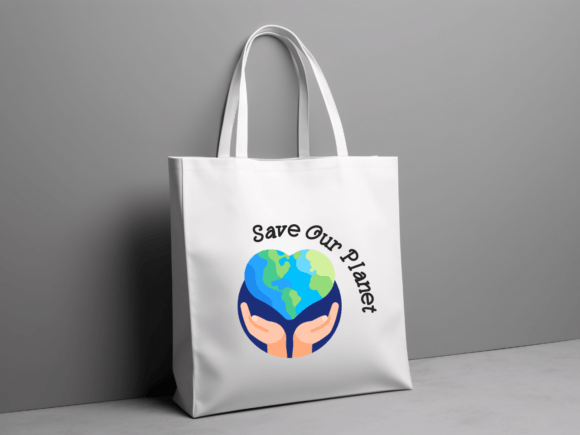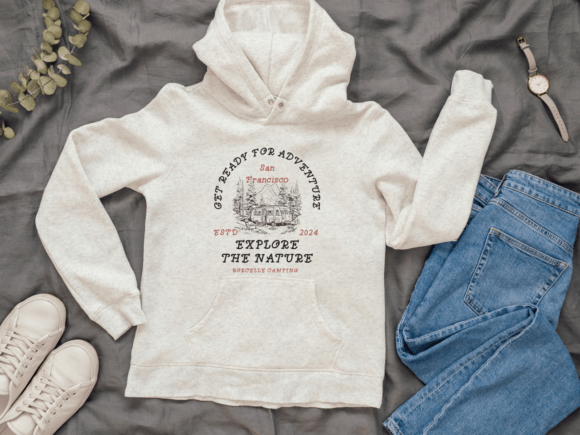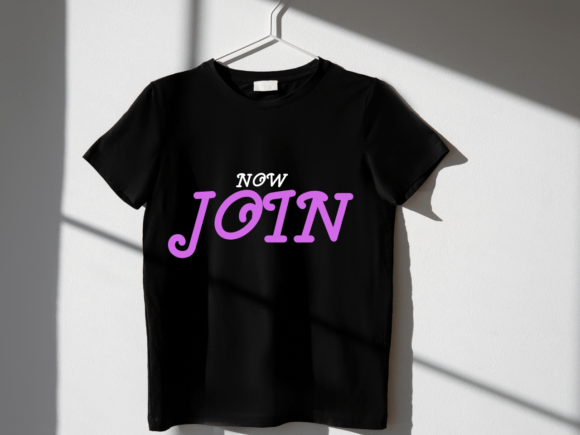
Introduction to Merlieo Font
Have you ever stared at a blank page, desperately searching for the perfect font to bring your creative project to life? The frustration is real, but fear not, fellow designers! I’ve found the solution to your typography troubles, and it’s called Merlieo Font. This sweet and friendly font is about to become your new BFF in the world of design.
With its natural and unique style, Merlieo Font is the ultimate design resource for any creative project. Whether you’re working on a logo, a brochure, or a social media graphic, this high-quality font is sure to impress. And the best part? It’s available for free download, so you can get started on your next project without breaking the bank. Plus, with its transparent background, you can easily merge it with any design element.
- Unique, handcrafted design aesthetic that adds a touch of elegance and sophistication to any creative project
Honest Review: Merlieo Font
As a designer, I’m always on the lookout for high-quality design resources that can elevate my creative projects. Recently, I stumbled upon the Merlieo Font, and I’m excited to share my honest review.
Here’s what works well: ✨ The Merlieo Font is incredibly versatile, with a wide range of styles and weights to choose from. The design is clean and modern, making it perfect for a variety of creative projects, from logos to typography-based designs. I also appreciate that it’s available for free download, which is a huge plus for designers on a budget.
Some limitations to consider: ⚠️ While the Merlieo Font is high quality, it may not be suitable for projects that require a transparent background. Additionally, some users may find the font’s styling to be a bit too minimalist, which may not appeal to everyone’s taste.
Overall, I’m impressed with the Merlieo Font, and I think it’s a great addition to any designer’s toolkit. With its high quality, versatility, and free download option, it’s definitely worth checking out.
- Wide range of styles and weights
- Perfect for logos and typography-based designs
Common Use Cases for Merlieo Font
The Merlieo Font is suitable for a variety of creative projects, including graphic design, digital art, and typography. You can use the font to create logos, business cards, and other marketing materials.